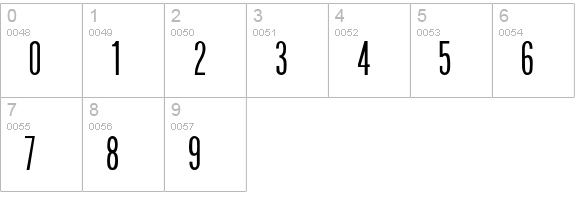
Introducing Phoenix font, a stunning typeface that exudes elegance and sophistication. With its sleek and modern design, Phoenix is the perfect choice for any project that requires a touch of class. Whether you're designing a logo, creating a website, or crafting a beautiful invitation, this font will effortlessly elevate your work to new heights. One of the most remarkable aspects of Phoenix font is that it is completely free. Yes, you read that right - this incredible font can be downloaded at absolutely no cost! Thanks to its creators' generosity, Phoenix font is freely available to download at FontsMarket.com, a trusted source for high-quality fonts. Featuring a wide range of characters and symbols, Phoenix font offers endless possibilities for creative expression. Its clean lines and balanced proportions make it versatile and easy to read, while its subtle curves add a touch of elegance. Whether you're using it for headlines, body text, or both, this font will capture attention and leave a lasting impression. Designed with meticulous attention to detail, Phoenix font is a true masterpiece. Its refined features and flawless execution make it a standout choice among other fonts. The combination of its timeless aesthetic and contemporary vibes sets it apart from the crowd, making it a go-to option for designers and creatives alike. Don't miss out on the opportunity to enhance your projects with the beauty and versatility of Phoenix font. Download it for free today at FontsMarket.com and experience the transformative power of this incredible typeface. Elevate your designs, captivate your audience, and make a lasting impact with Phoenix font.